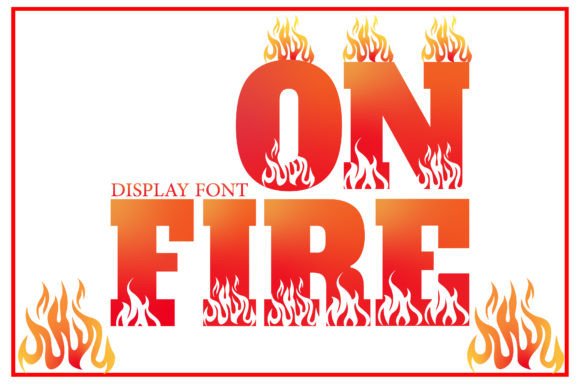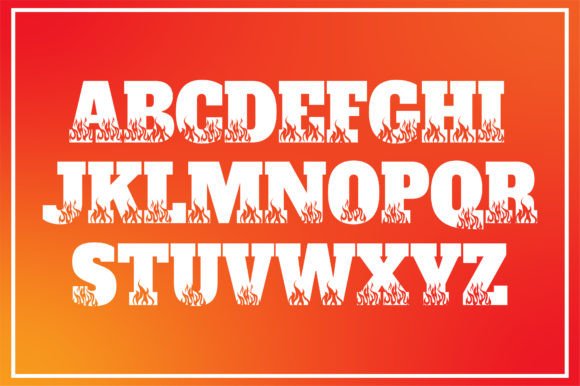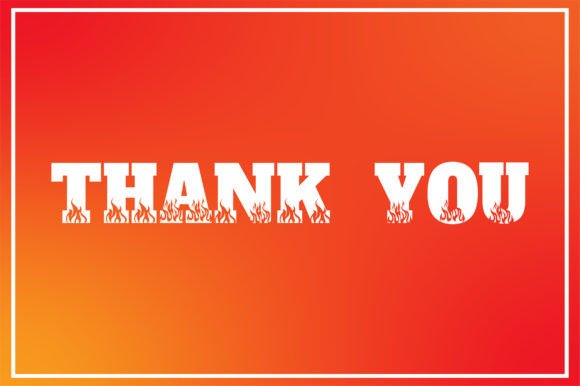
On Fire Font
On Fire is a unique, thick lettered, and hot decorative font. No matter the topic, this font will be an incredible asset to your fonts’ library, as it has the potential to elevate any creation.